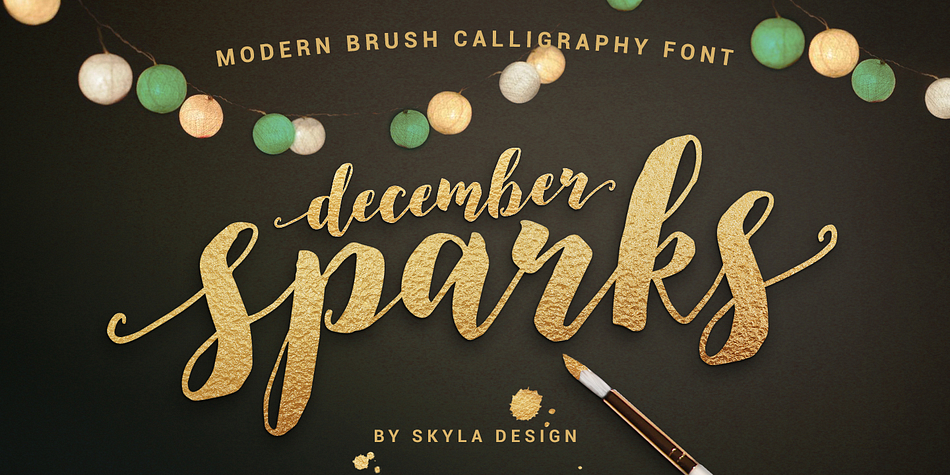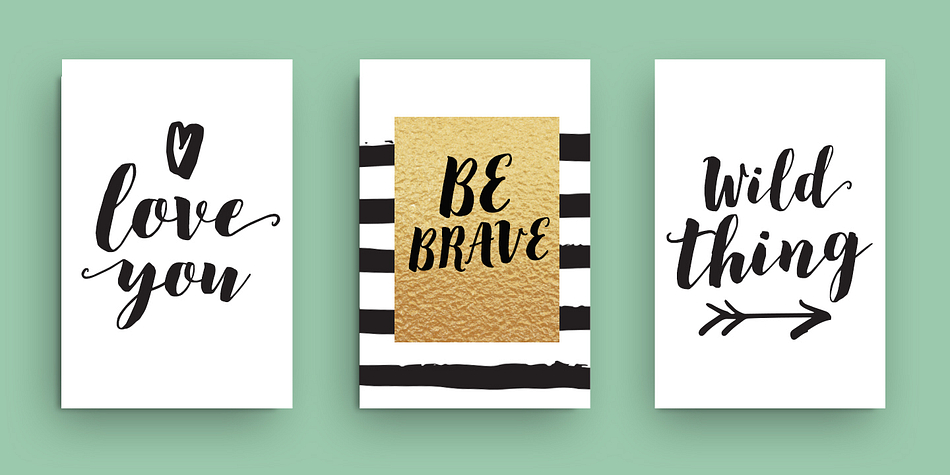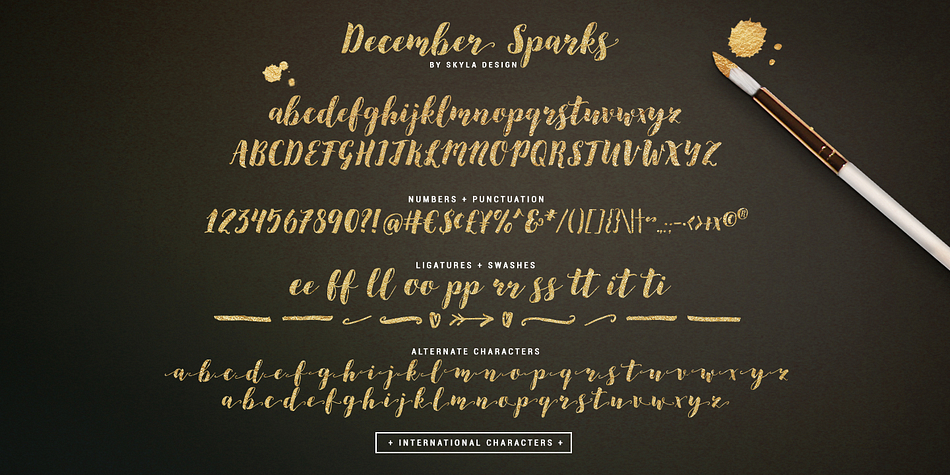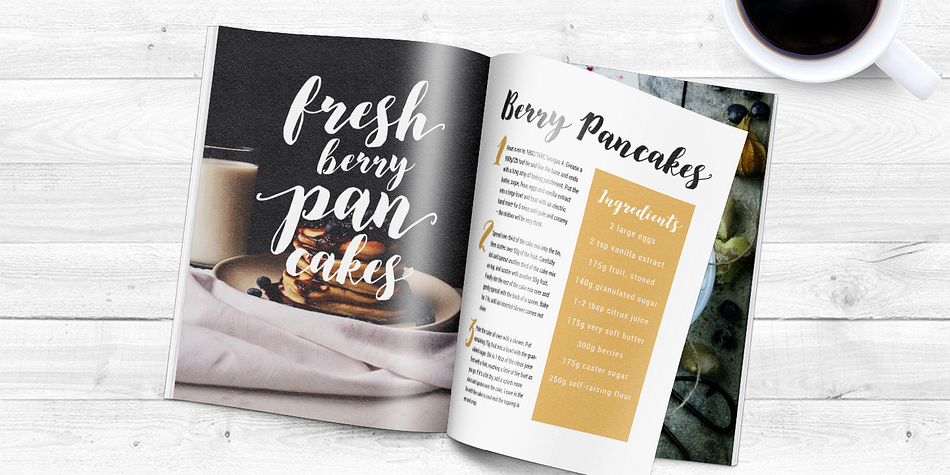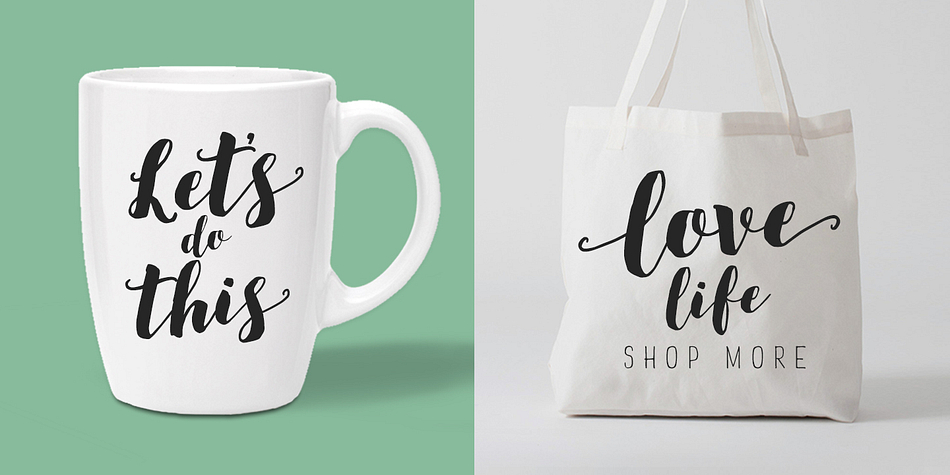
Designed by Angèle Kamp, December Sparks is a modern calligraphy font published by Angèle Kamp.
December Sparks is a modern, brush, calligraphy font with a dancing baseline and decorative swashes. This playful script will look gorgeous on all your branding materials, logo’s, cards, invites, and any other lovely projects you are working on.
December Sparks contains standard characters, lowercase, uppercase, numbers, punctuation, ligatures, and international characters. The lowercase letters include alternates with initial and end swashes. This font is PUA coded, which means you can access the swashes without any fancy software via FontBook for MAC and Character Map for PC.